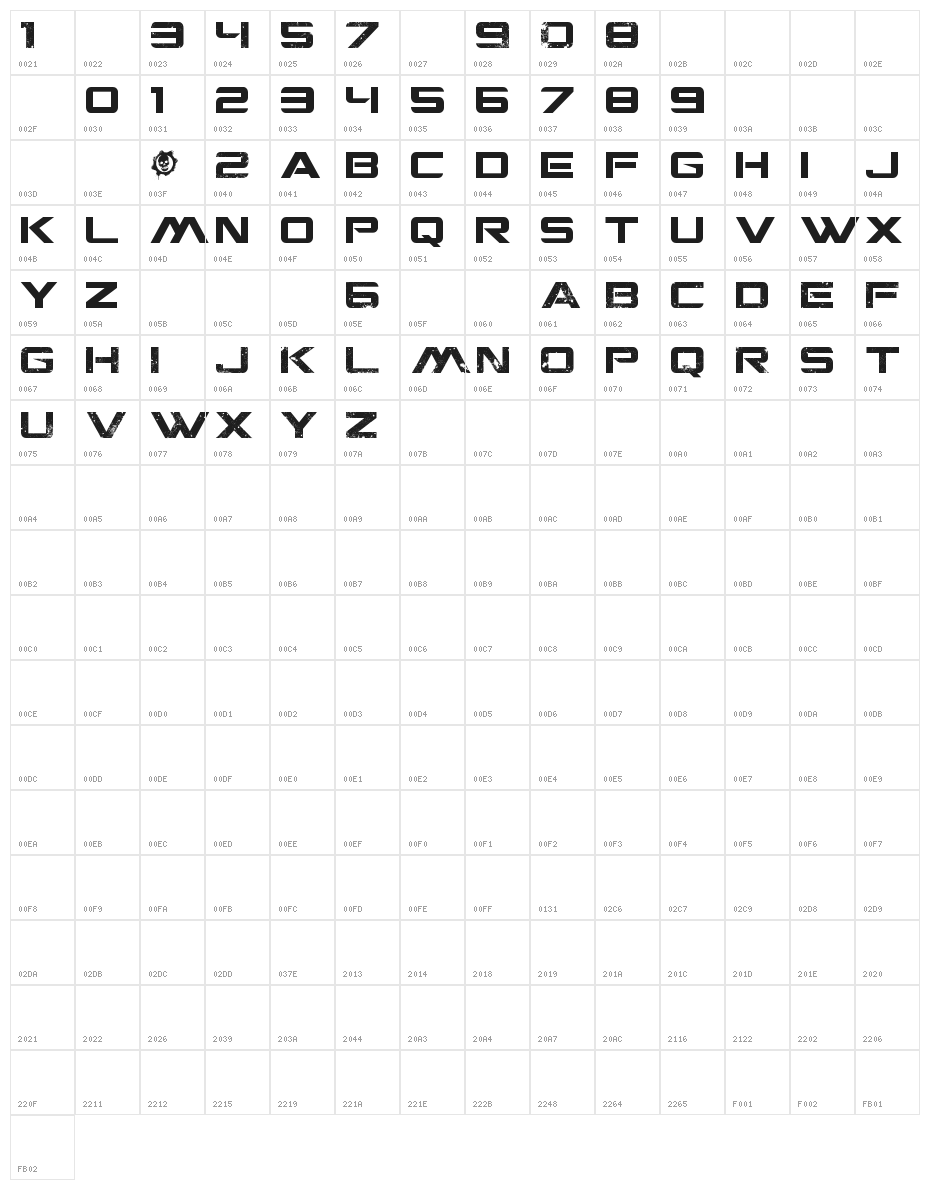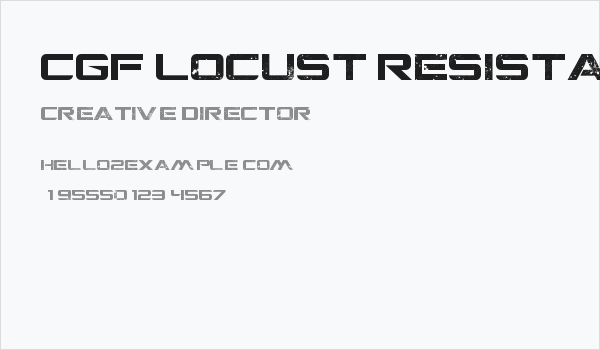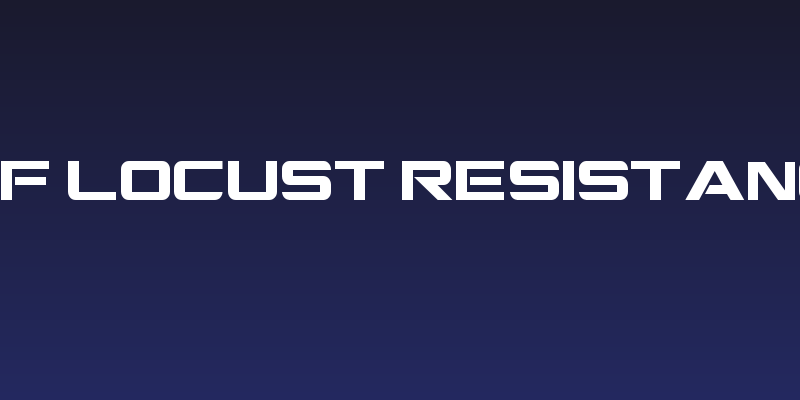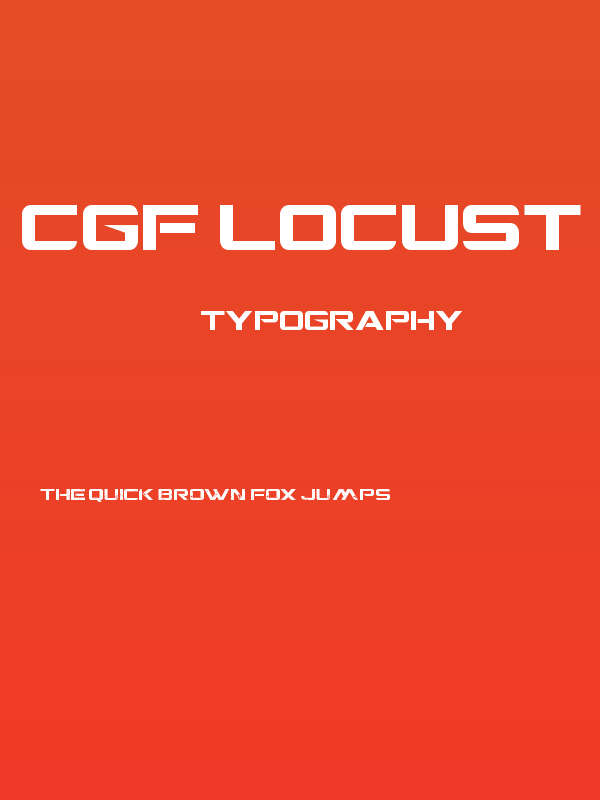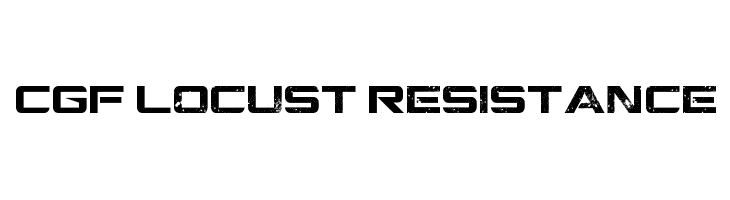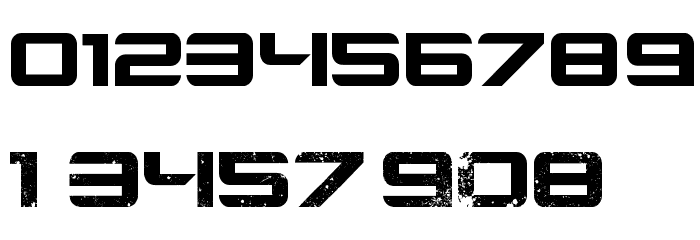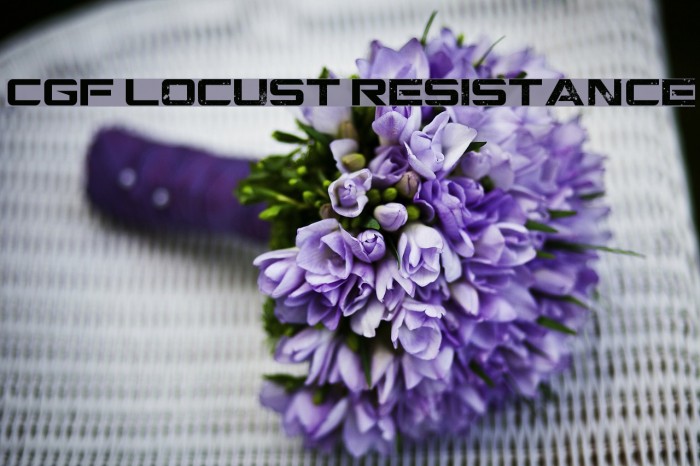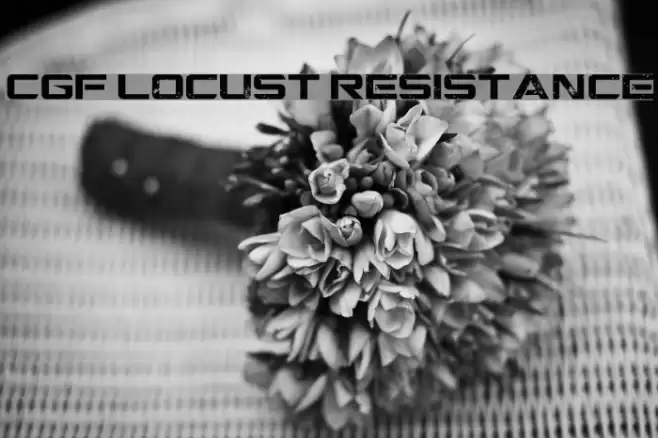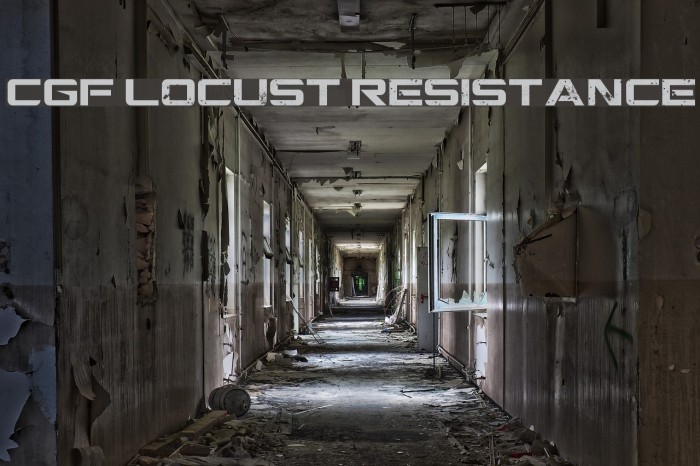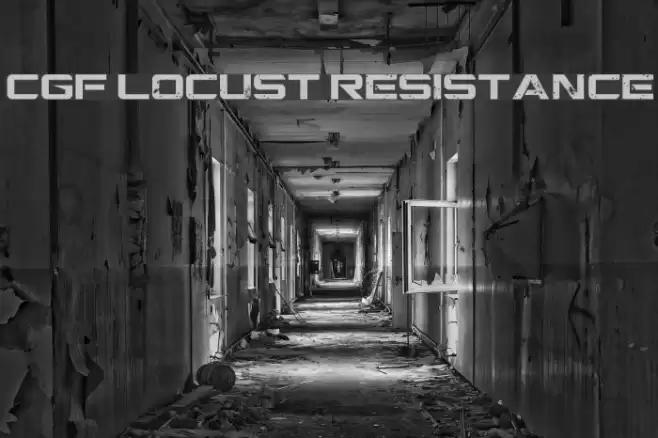
CGF Locust Resistance Font
CGF Locust Resistance Description
This font features a bold, geometric design with a futuristic and industrial feel. The uppercase letters are sharp and angular, giving a sense of strength and modernity. The distressed version adds a rugged, worn texture, enhancing its edgy and rebellious character. The numerals maintain the same boldness and geometric precision, ensuring consistency across the typeface. The font's style is suitable for projects that require a strong visual impact, such as posters, album covers, or video game titles. Its unique appearance makes it stand out, while the distressed version offers versatility for different thematic expressions.
| Overall Style | Modern, Industrial |
| Proposed Projects | Ideal for posters, album covers, video game titles, and any project needing a strong visual impact. |